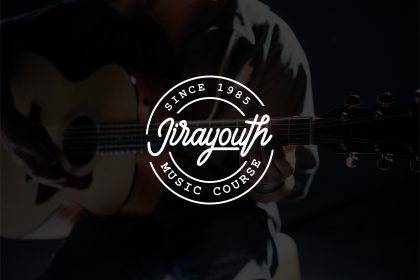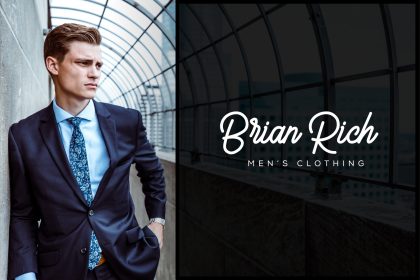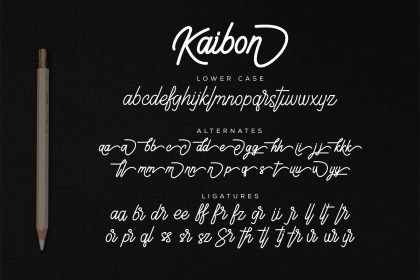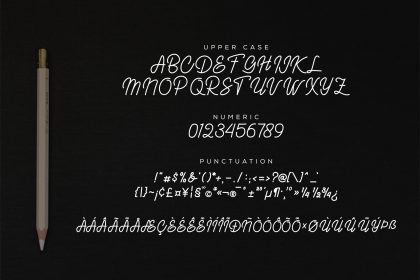
Kaibon Signature Font
Kaibon Signature Font is a modern and stylistic signature font with an elegant and feminine feel. It’s perfect for branding, logo, wedding invites, magazines, quotes, posters, signature, title and much more!